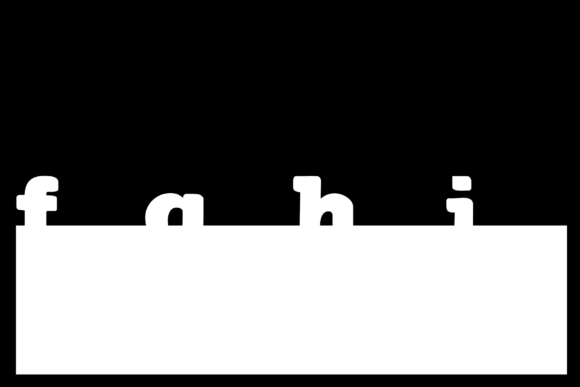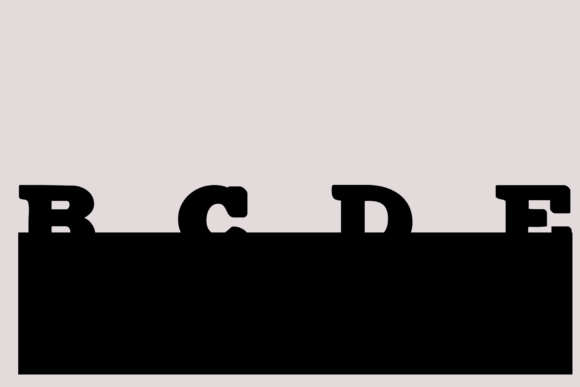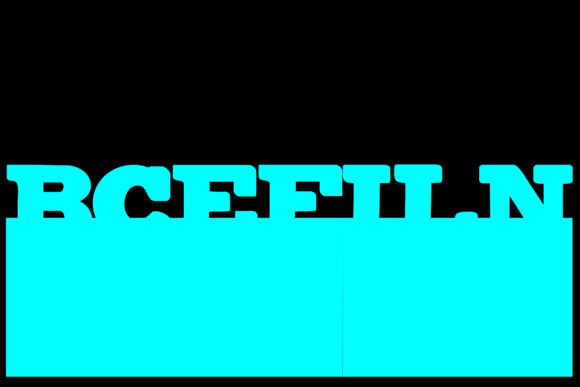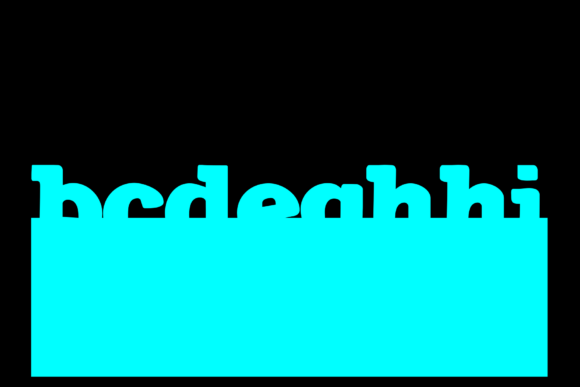
Introduction to Cortinado Font
You’re working on a creative project, and you need the perfect font to bring your vision to life. You’ve spent hours browsing through design resources, but nothing seems quite right. That’s when you stumble upon the Cortinado Font – a mixed style font that’s as versatile as it is unique. With its transparent background and high-quality design, this font is a game-changer for designers looking to add a touch of sophistication to their work.
The Cortinado Font is more than just a design element; it’s a valuable resource that can elevate your creative project from good to great. Its mixed style makes it perfect for a variety of applications, from headings to body text. Whether you’re working on a logo, brochure, or website, this font is sure to impress. And the best part? It’s available for free download, making it a must-have for any designer looking to take their work to the next level.
Key Features of Cortinado Font
- High-quality, elegant design perfect for creative projects
- Features a transparent background, ideal for overlaying on images or videos
- Comes in 6 styles, each with its unique characteristics and nuances
- Perfect for designers, artists, and creatives looking for a sophisticated font
Honest Review: Cortinado Font
Cortinado Font is a beautiful, elegant font that I’ve had the pleasure of working with. As a designer, I appreciate high-quality design resources, and Cortinado Font definitely delivers. One of its standout features is its ability to be used with a transparent background, which makes it a great choice for creative projects that require a lot of flexibility.
What works well with Cortinado Font is its versatility. It can be used for a wide range of projects, from business cards to website headers. The font is also available for free download, which is a huge plus for designers on a budget. I’ve found it to be a great resource for when I need a high-quality font for a client project.
Pros:
- ✨ Elegant and sophisticated design
- ✨ Can be used with a transparent background
- ✨ Versatile and suitable for a wide range of projects
Cons:
- ⚠️ Limited character set (may not be suitable for complex text)
- ⚠️ Not as customizable as some other fonts
Overall, I’m really impressed with Cortinado Font. It’s a great addition to any designer’s toolkit, and I highly recommend it for any creative project that requires a high-quality font. Just be aware of its limitations, and you’ll be golden!